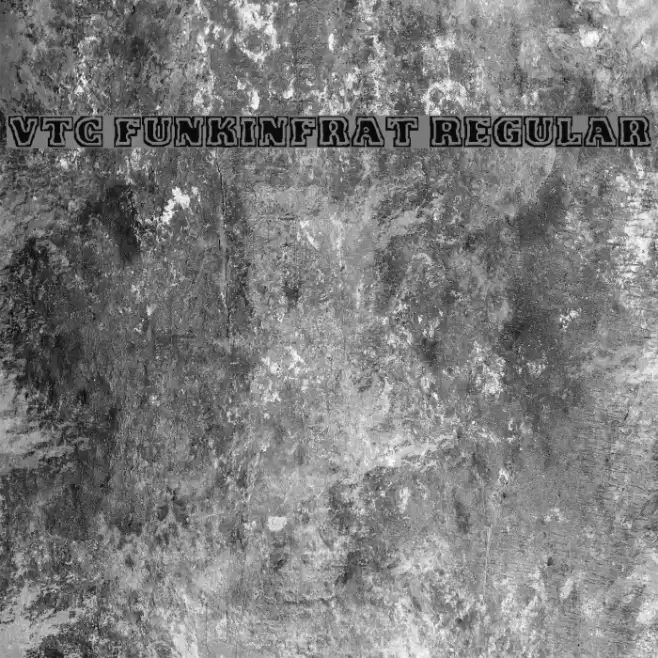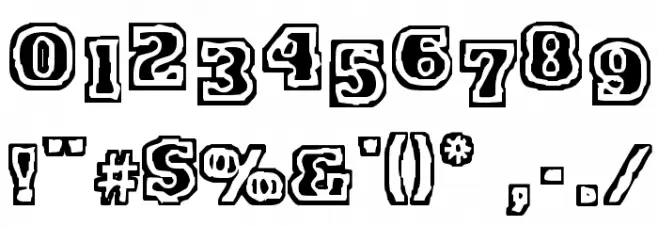
VTC FunkinFrat Regular Font
VTC FunkinFrat Regular Description
This font features a bold, playful design with a strong outline that gives each character a three-dimensional effect. The letters are uppercase and lowercase, with numbers and a variety of special characters. The style is reminiscent of collegiate or fraternity lettering, with a decorative flair that makes it stand out. The thick strokes and outlined design create a striking visual impact, making it ideal for attention-grabbing headlines or logos. The font's unique style is both retro and modern, offering versatility for various design projects.
A bold, outlined font with a playful, collegiate style from Uncategorized fonts.
- Proposed Projects: Ideal for posters, event flyers, logos, and apparel designs that require a bold, eye-catching typeface.
- Overall Style: Retro, Modern